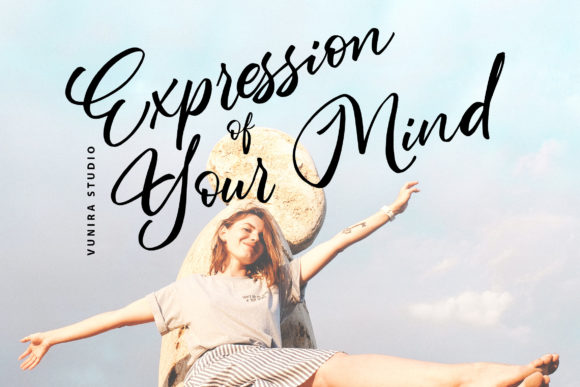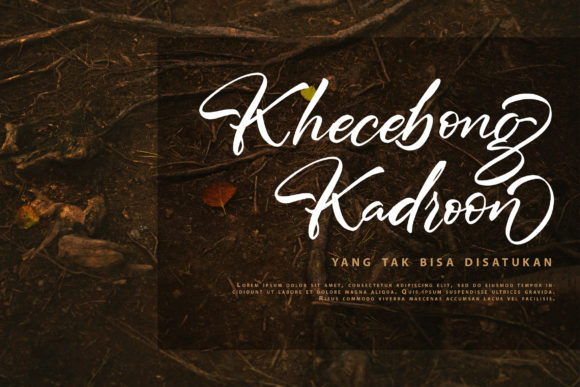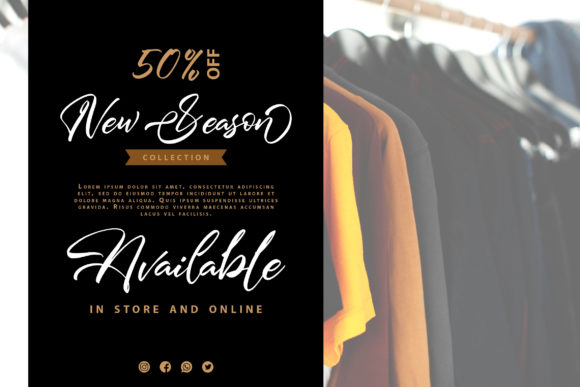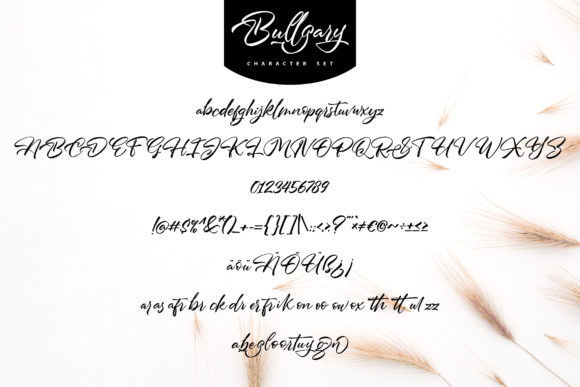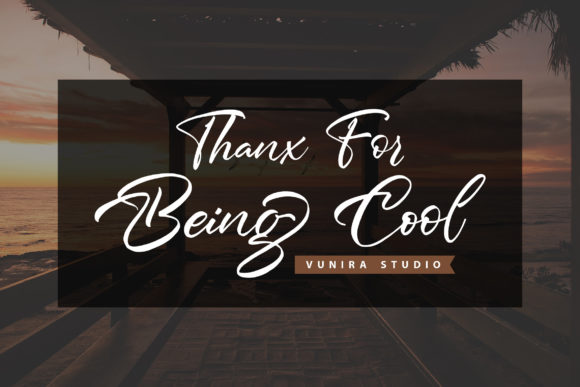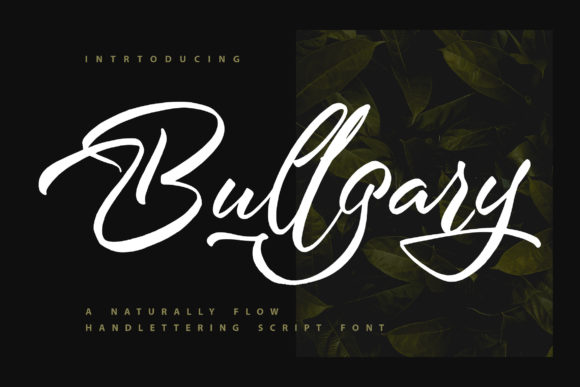
Bullgary Font: Elevate Your Designs with Elegance and Sophistication
In the world of typography, a font can make or break a design. For designers and crafters seeking to add a touch of elegance and sophistication to their work, Bullgary Font is an exceptional choice. This beautiful and refined script font is perfect for a wide range of applications, from logos and branding to invitations, stationery, wedding designs, and social media posts.
The Essence of Bullgary Font
Bullgary Font boasts a classy, elegant, and modern look that instantly elevates any design. Its refined script style is characterized by flowing lines, beautiful swashes, and intricate details that give it a unique and sophisticated feel. Whether you’re working on a luxury brand logo, a wedding invitation, or a social media post, Bullgary Font is sure to make a lasting impression.
One of the standout features of Bullgary Font is its versatility. Its elegant and modern design makes it suitable for a wide range of applications, including:
- Logos and Branding: Create a lasting impression with a custom logo that exudes elegance and sophistication.
- Invitations and Stationery: Add a touch of refinement to your invitations, business cards, and letterheads.
- Wedding Designs: Make your wedding designs truly unforgettable with Bullgary Font’s beautiful and elegant script style.
- Social Media Posts: Elevate your social media presence with stylish and sophisticated posts that grab attention.
Bullgary Font is PUA (Private Use Area) encoded, which means you can access all of its amazing glyphs and ligatures with ease. This feature makes it incredibly convenient to use the font, as you can simply copy and paste the glyphs and ligatures into your design software. No more complicated font installation or configuration – just pure, creative freedom.
In conclusion, Bullgary Font is an exceptional choice for designers and crafters seeking to add a touch of elegance and sophistication to their work. With its refined script style, versatility, and PUA encoding, this beautiful font is sure to elevate your designs and help you stand out from the crowd. Whether you’re working on a logo, invitation, wedding design, or social media post, Bullgary Font is the perfect tool to help you create stunning, high-quality designs that leave a lasting impression.